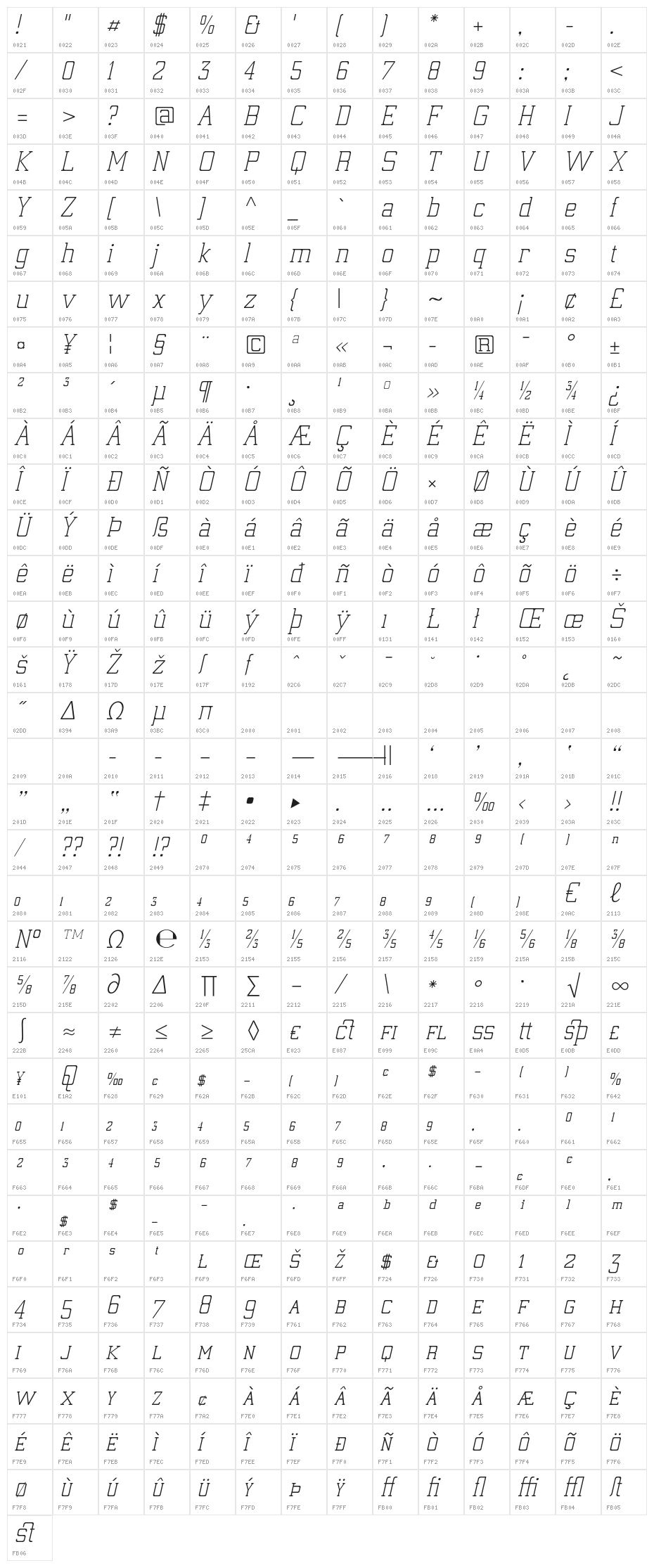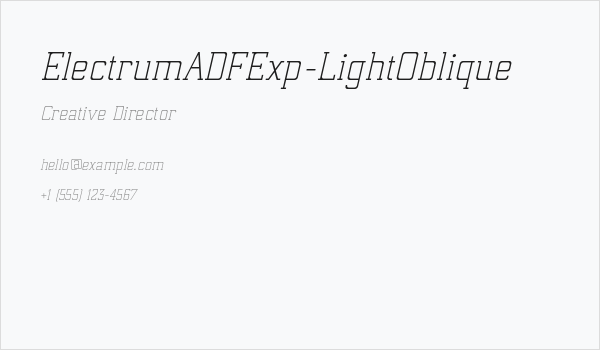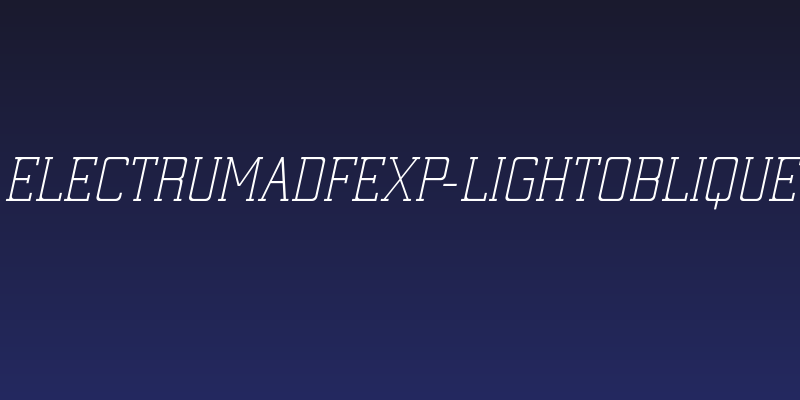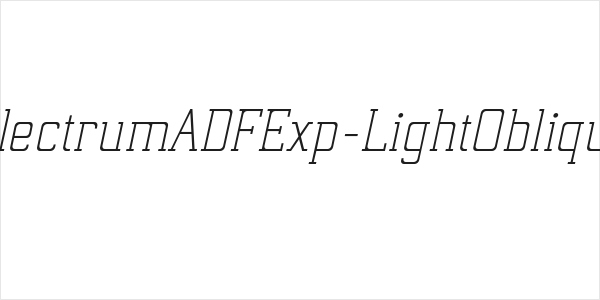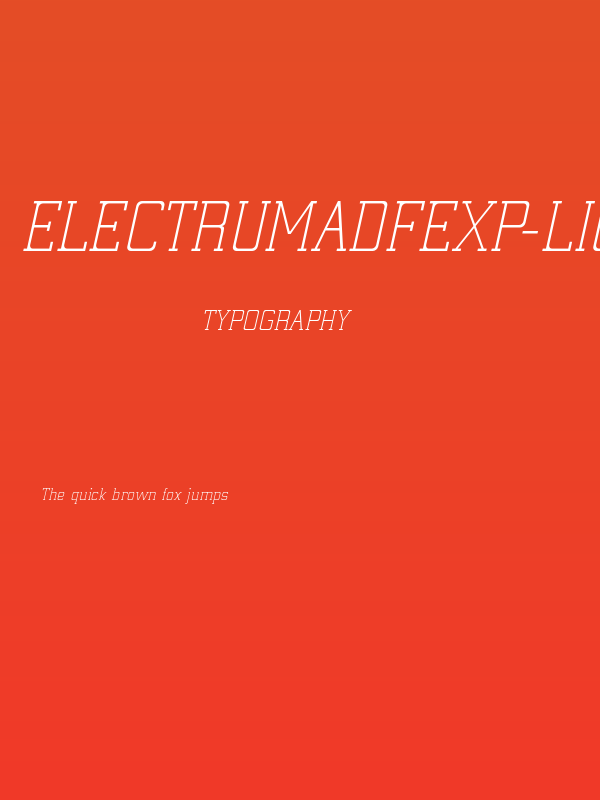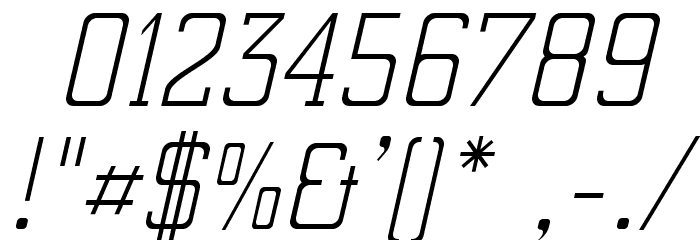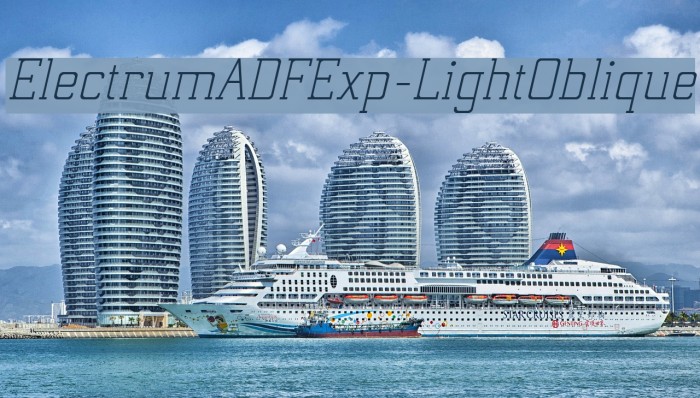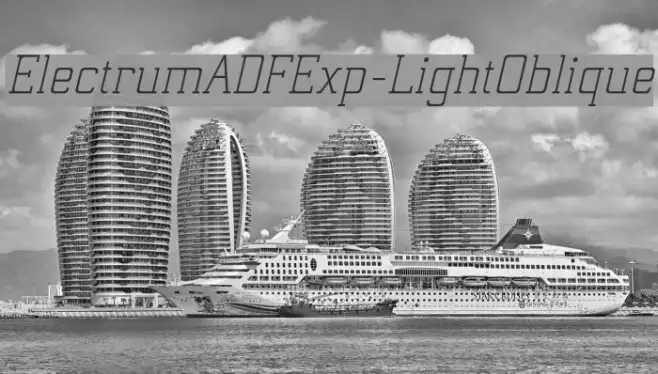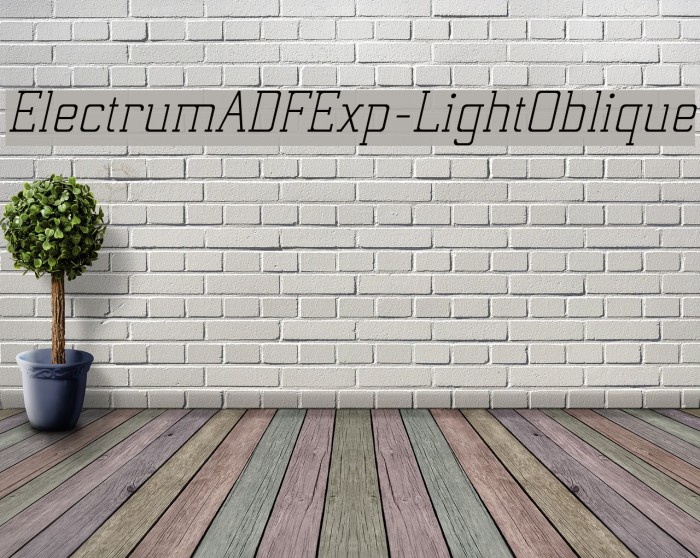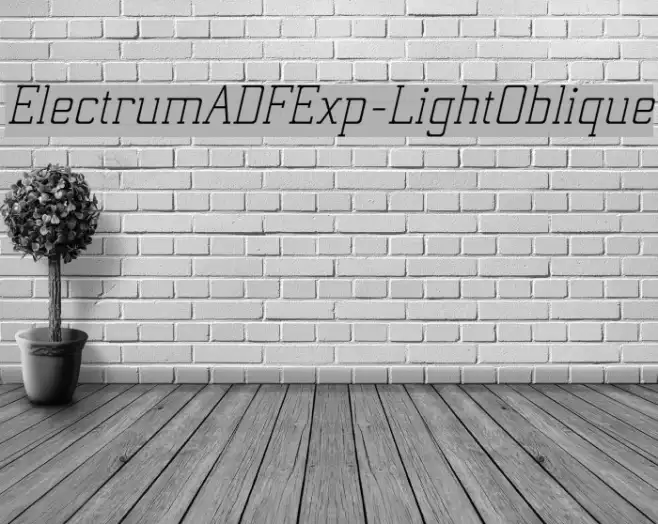
ElectrumADFExp-LightOblique Font
ElectrumADFExp-LightOblique Description
This font exhibits a sleek and modern design with an oblique style, characterized by its light weight and expanded width. The characters are crafted with a consistent slant, giving a dynamic and forward-moving appearance. The strokes are thin, providing a clean and elegant look, while maintaining a high level of readability. The spacing between characters is normal, ensuring clarity and legibility across various uses. The font's overall aesthetic is contemporary, making it suitable for projects that require a touch of sophistication and modernity.
| Use Case | Headlines, Logos, Editorial design |
| Proposed Projects | Ideal for branding, advertising, and editorial design where a modern and sophisticated look is desired. |